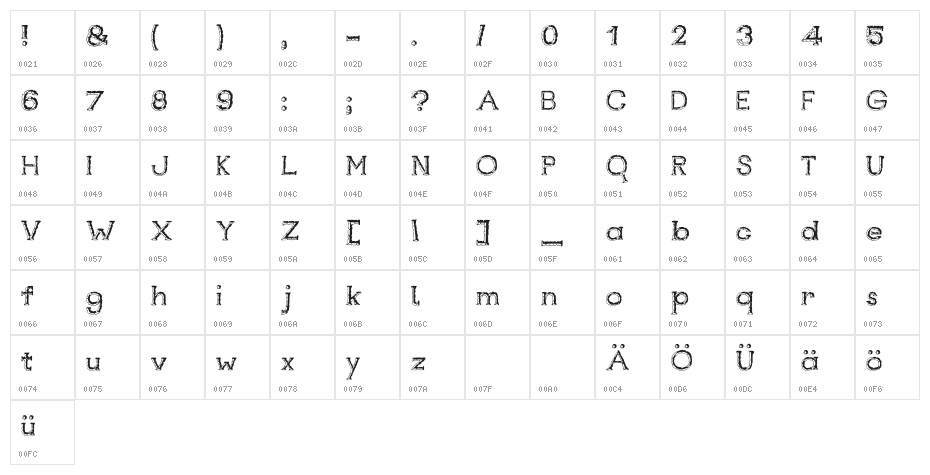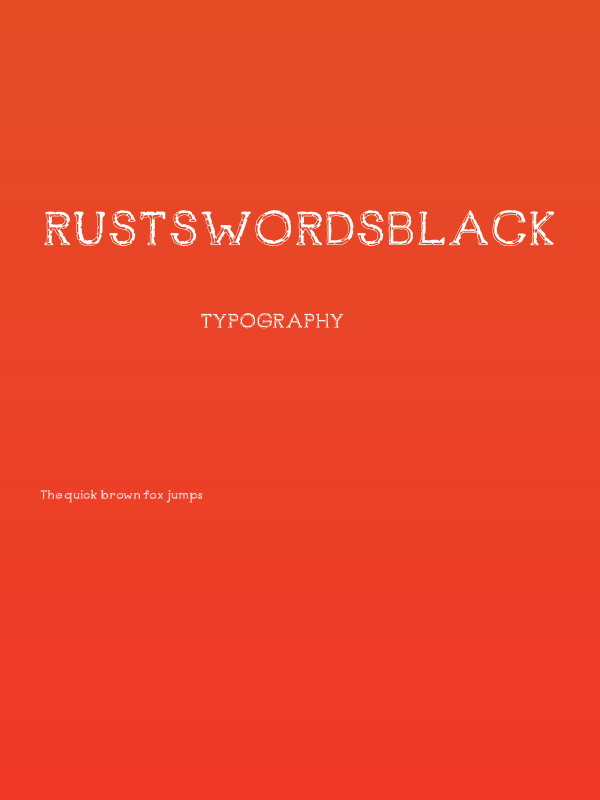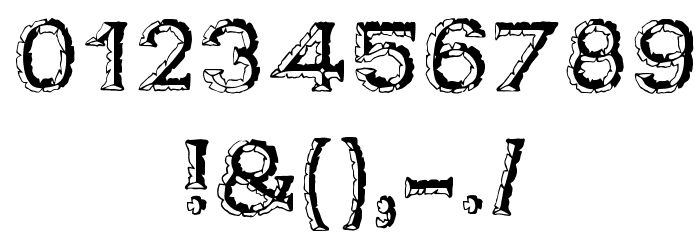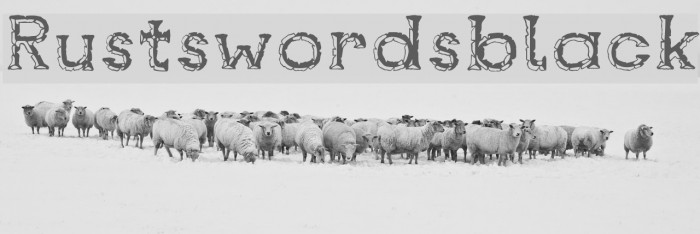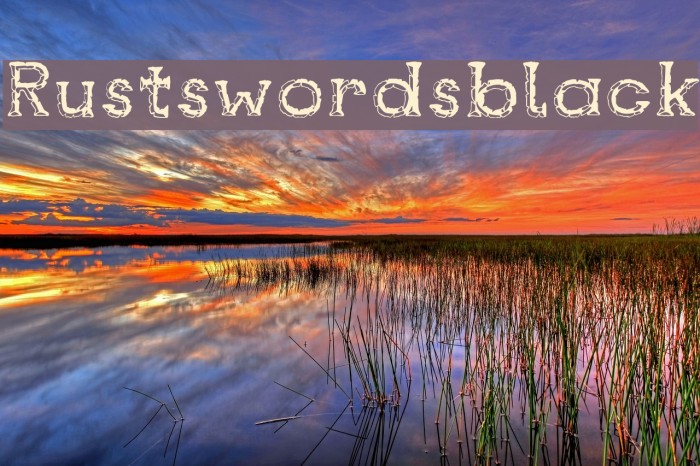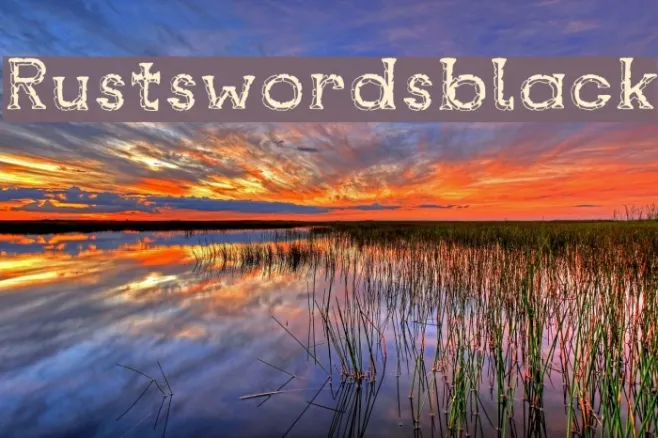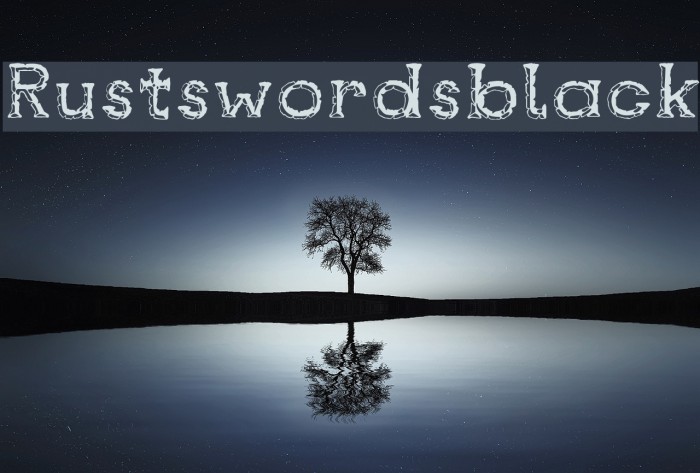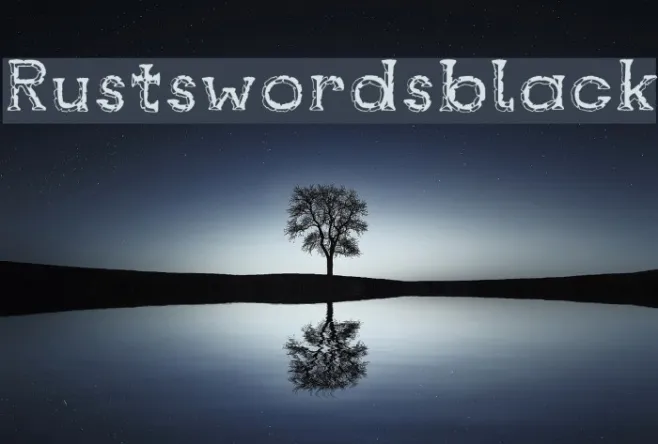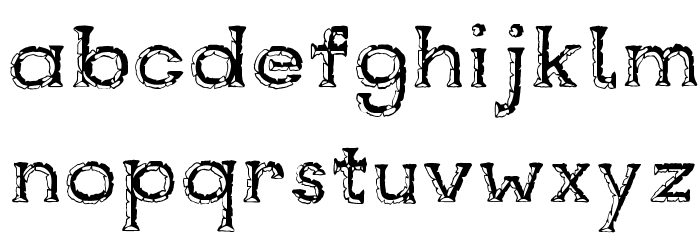
Rustswordsblack Font
This font features a rugged, distressed appearance that mimics the texture of rusted metal or weathered surfaces. Each character is outlined with irregular, jagged edges, giving it a hand-drawn, organic feel. The letters are bold and prominent, with a unique, artistic flair that makes them stand out. The uppercase and lowercase letters maintain a consistent style, while the numbers and special characters complement the overall design. This font is ideal for projects that require a gritty, industrial aesthetic, such as posters, album covers, or themed event invitations.